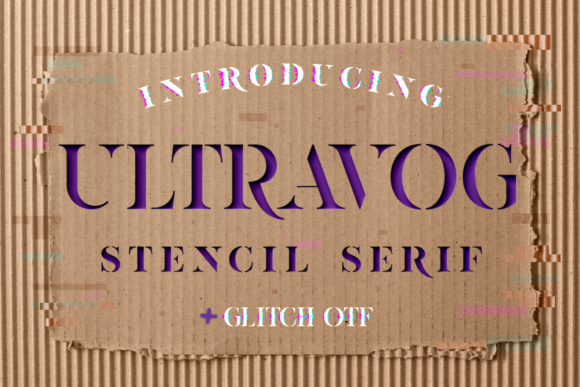
Prepare to be mesmerized by Ultravog, the captivating serif font that blends modern elegance with timeless vintage aesthetics. Embark on a typographic journey where tradition meets innovation, creating designs that exude sophistication and charm. Let Ultravog's graceful curves and sharp edges elevate your creative projects to new heights.
Dive into Ultravog's world of versatility, where you'll discover endless possibilities. From elegant invitation cards to captivating beauty and fashion designs, Ultravog effortlessly adapts to your vision. Its presence in book designs and magazines adds a touch of classic allure, while its adaptability extends to packaging, branding, and other creative endeavors.
Picture this: an invitation card adorned with Ultravog's intricate letterforms, hinting at the special occasion within. Its serif details exude a sense of formality, while its open counters add a touch of lightness. Or, visualize a fashion magazine spread where Ultravog's bold strokes command attention, highlighting the latest trends with a touch of understated elegance.
Ultravog's versatility extends beyond its diverse applications. Its dual-nature as both a display and text font allows for seamless transitions between headlines and body text. Create harmonious layouts where each element complements the other, resulting in a cohesive and visually stunning design.
With Ultravog at your fingertips, unlock a world of creative potential. Its classic charm adds a touch of nostalgia to contemporary designs, while its modern appeal ensures it remains relevant and impactful. Whether you're a seasoned designer or just starting your creative journey, Ultravog is your trusted companion, ready to transform your ideas into captivating realities.